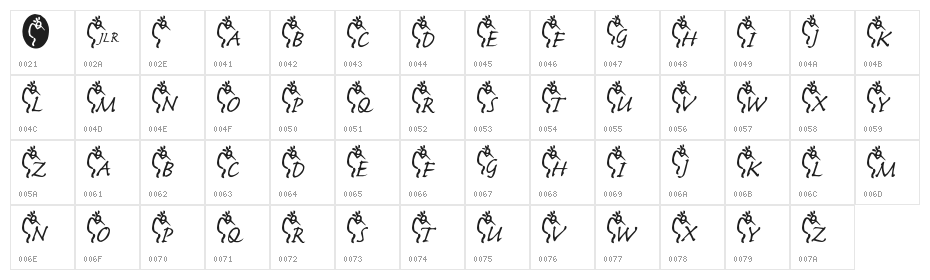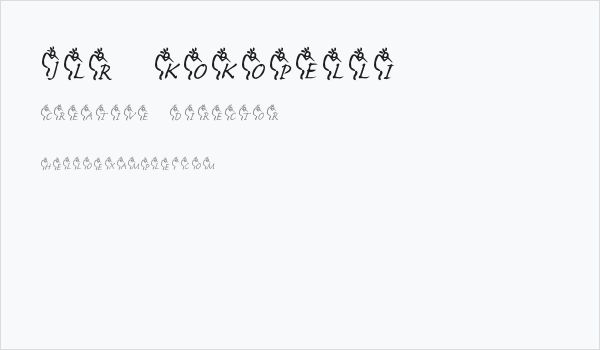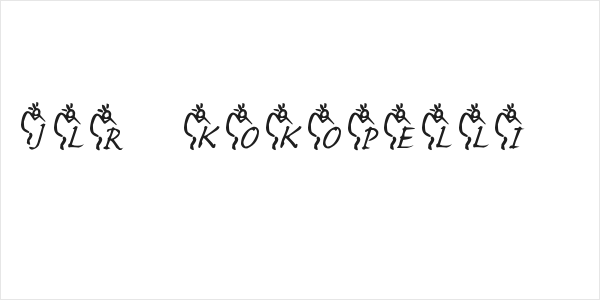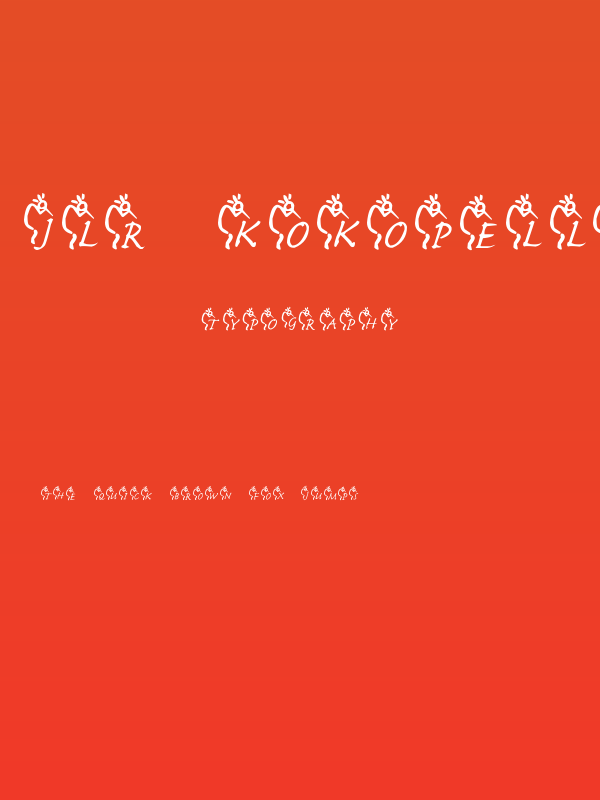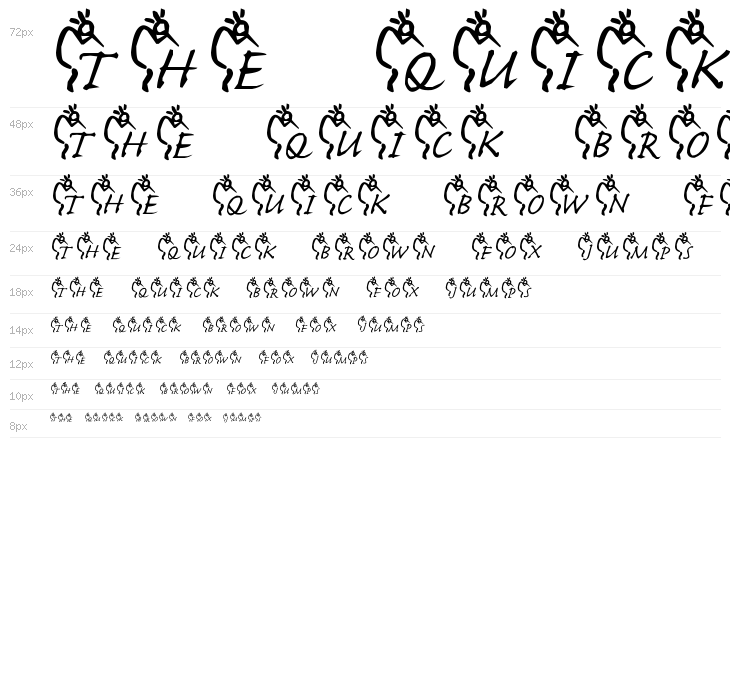
JLR Kokopelli 1 Font
JLR Kokopelli 1 Description
This font features a unique and playful design, incorporating a stylized figure reminiscent of the Kokopelli, a Native American symbol, into each character. The letters are embellished with this figure, creating a whimsical and decorative appearance. The font maintains a consistent style across uppercase and lowercase letters, as well as numbers and special characters. The design is intricate, with the figure seamlessly integrated into the letterforms, making it ideal for creative and artistic projects.
Use CaseLogos, Posters, Artistic projects
Proposed ProjectsIdeal for cultural or artistic projects, event invitations, posters, and branding that seeks a playful and unique touch.